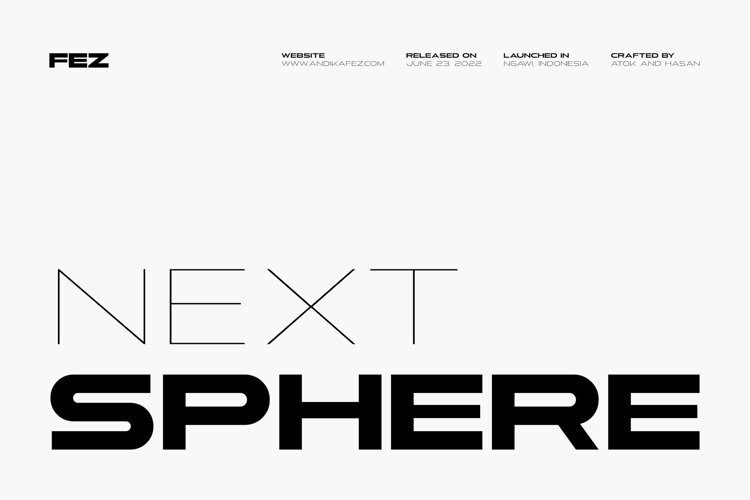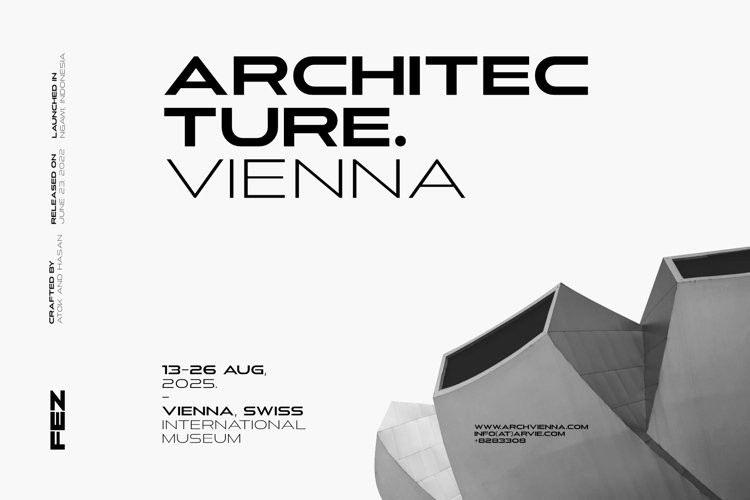
Next Sphere Font
Next Sphere FontNext Sphere is a super extended, bold and futuristic display font family. Add it confidently to your favorite creations and let yourself be amazed by the outcome generated.